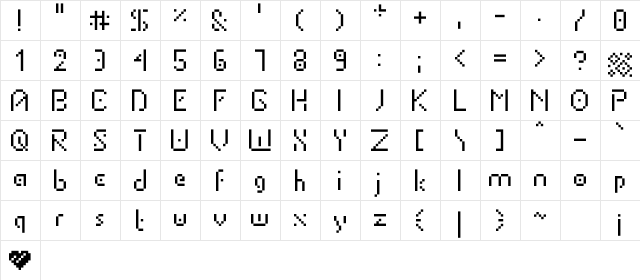
PortableTube Medium Font Preview
PortableTube Medium
PortableTube Medium Font Details
Design Context for PortableTube Typeface
PortableTube takes a measured approach to typography — its balanced proportions and neutral character make it a reliable workhorse for both digital and print work.